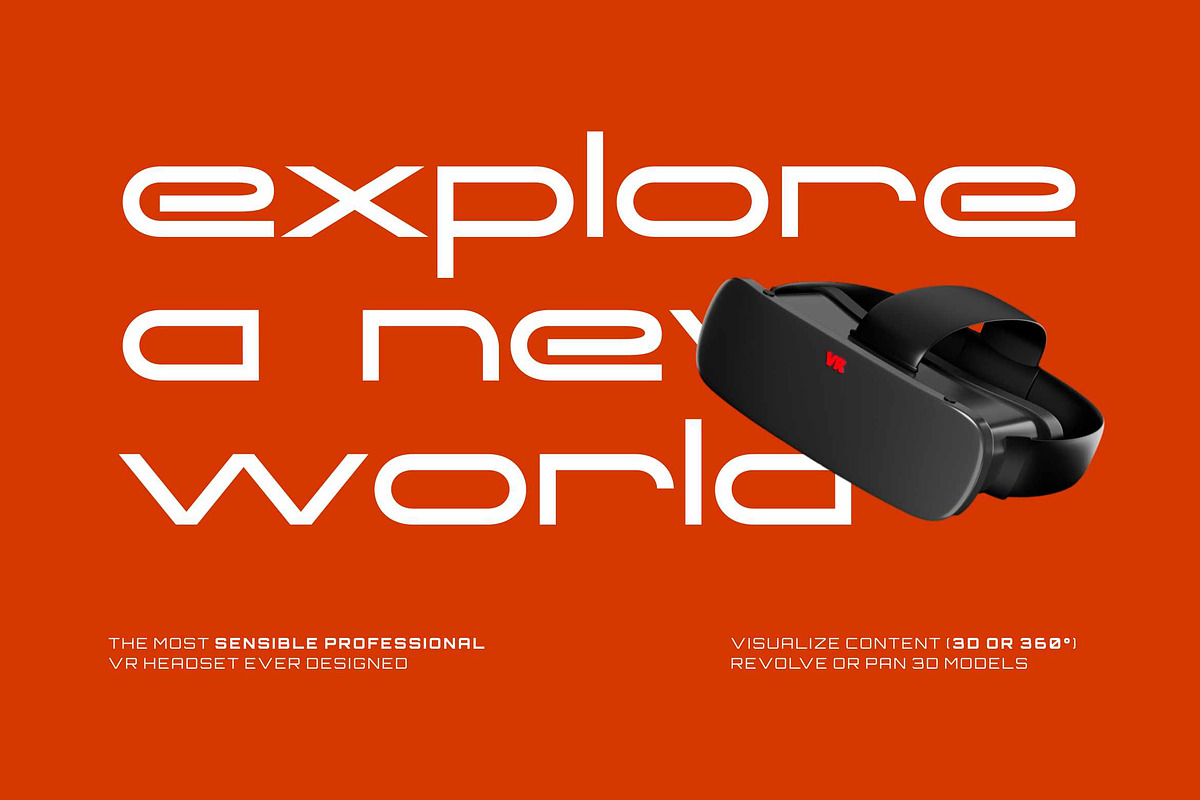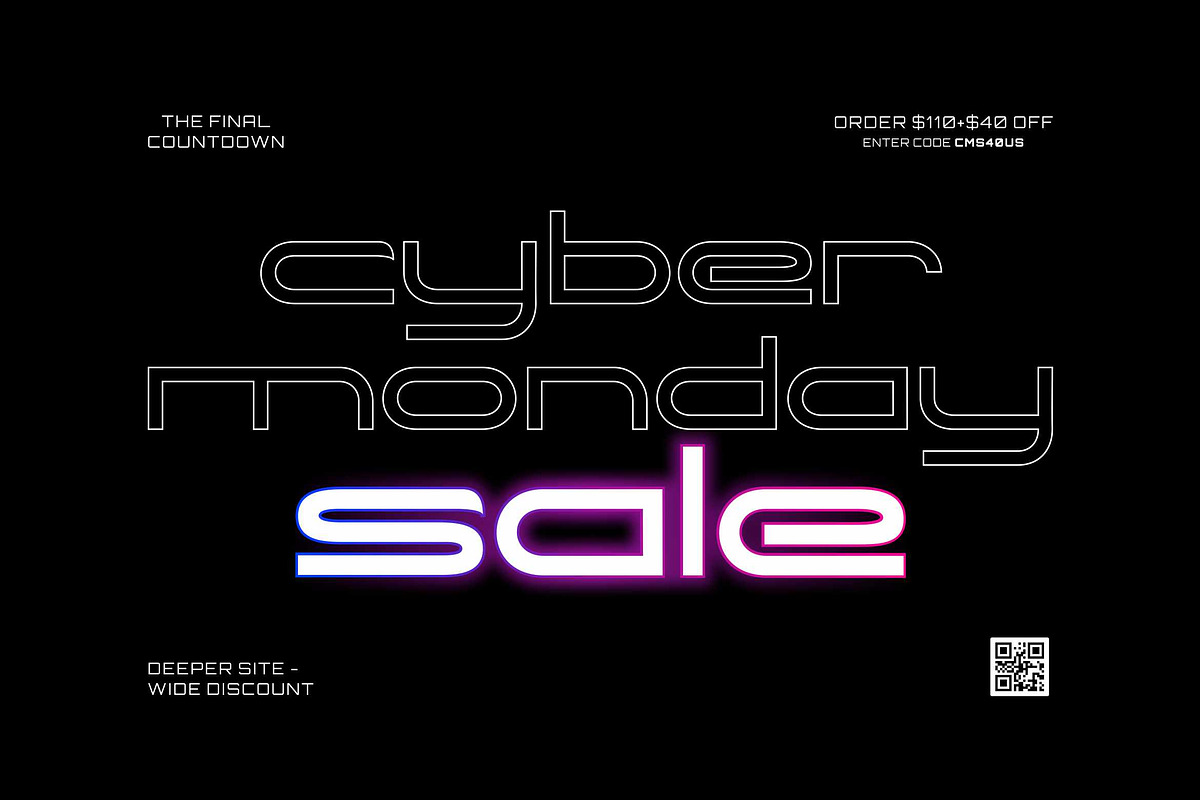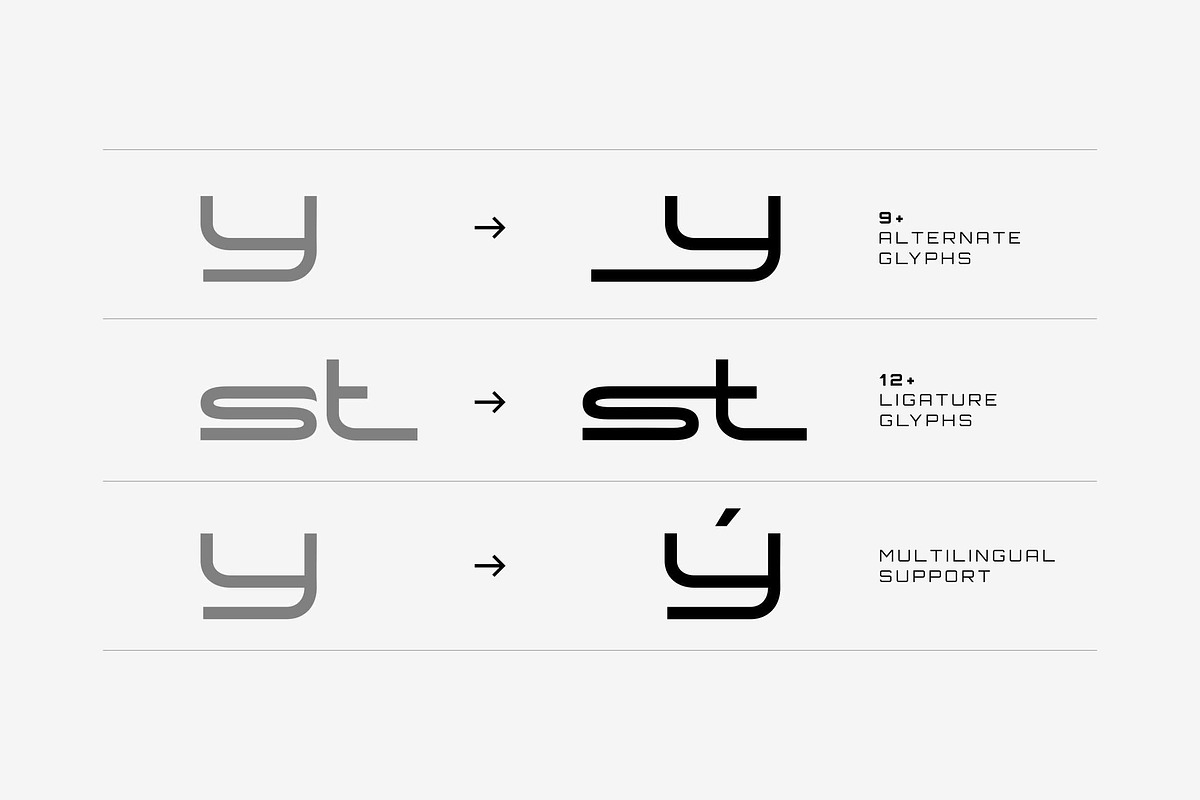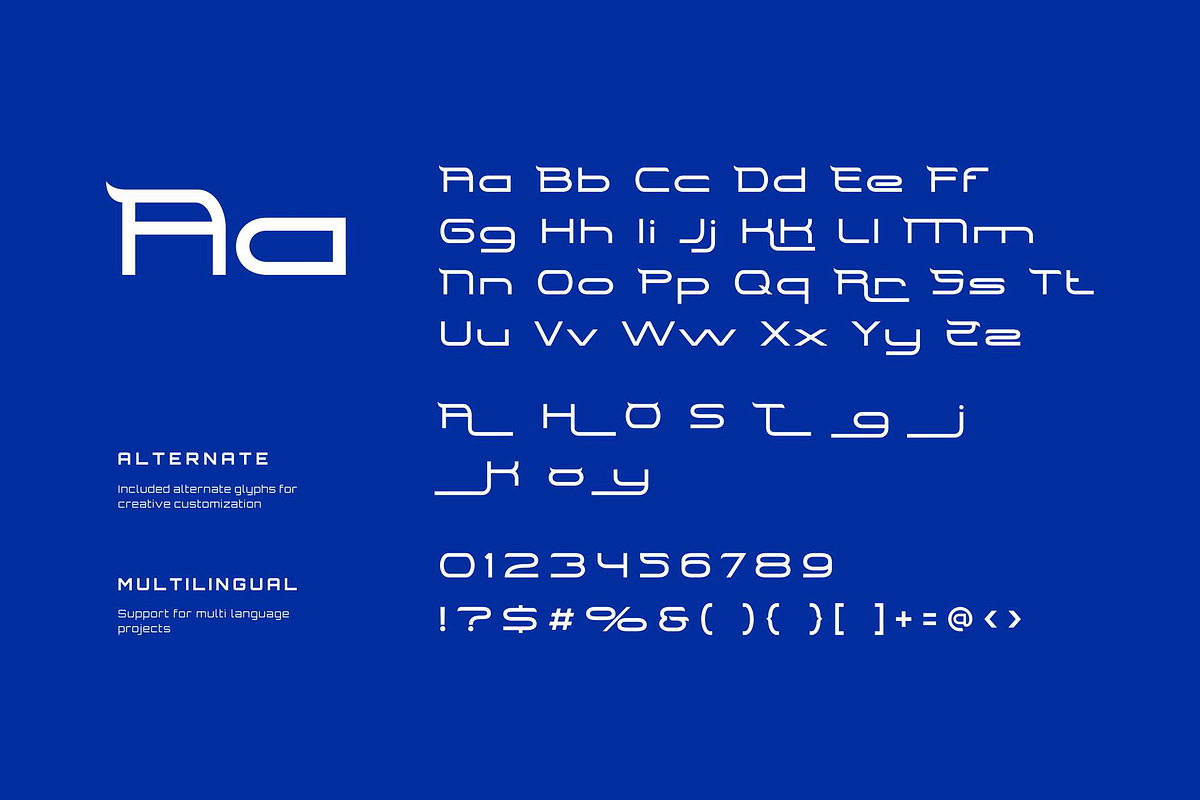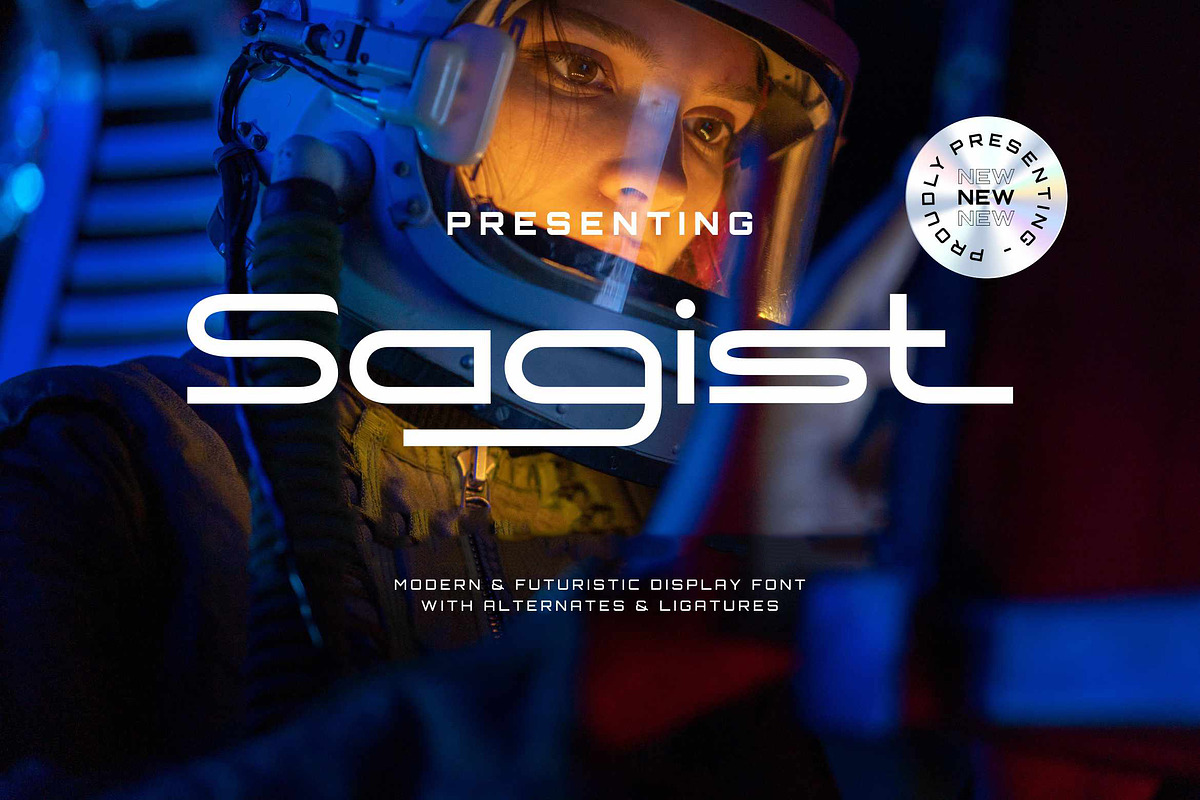
Sagist - Futuristic Geometric Sans
Introducing Sagist, a powerful and sleek display font that embodies the spirit of the future. Designed with a distinctively wide and geometric structure, Sagist commands attention and brings a high-tech, professional feel to any project.
The letterforms are crafted with precision, featuring clean, monolinear strokes and unique character cuts that create a sharp, futuristic aesthetic. Its wide stance gives headlines a stable and impactful presence.
Elevate your technology and startup branding with a font that speaks innovation. Craft unforgettable sci-fi movie titles and posters that capture the imagination, or build immersive gaming UI and promotional materials that pull users in. From high impact digital marketing campaigns to sharp, modern logotypes, Sagist is built to perform.
So whether you're inviting users to explore a new world in VR, announcing a major cyber sale, or presenting a game changing idea, Sagist is the typeface that will make your message feel like it's from the future.
- Uppercase and Lowecase Characters.
- PUA Encoded Characters.
- Numerals and Punctuations.
- Alternates and Ligatures.
- Multilingual Support.